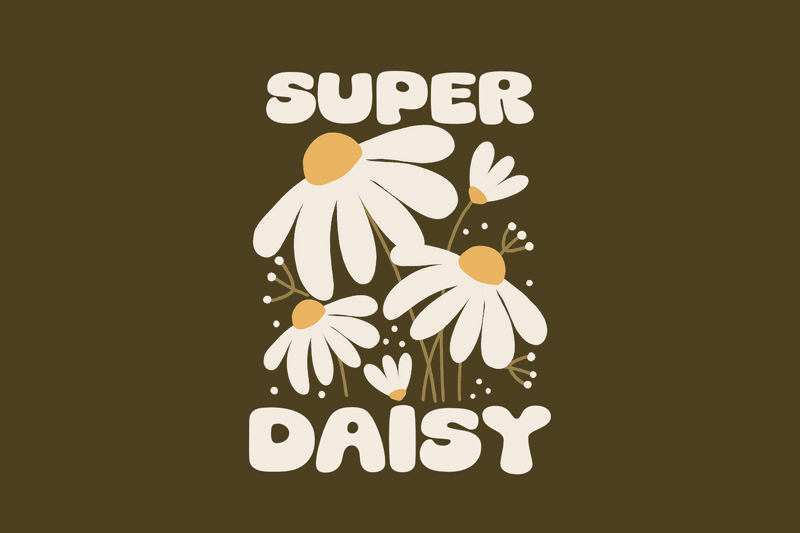
Preview and download Super Daisy Font. Created by fsuarez913 in Fancy Cartoon styles with Free for personal use license.
This font is for PERSONAL USE ONLY!. If you want to use this font for commercial purposes, you will need to purchase a commercial license. You can purchase a commercial license at https://singlelinestd.com/product/super-daisy/ Super Daisy is a round, bold, heavy, and chubby font that is perfect for making a statement. With its thick, curved letters, Super Daisy is both eye-catching and playful. It is a great choice for headlines, logos, and other attention-grabbing designs. For questions, please visit https://singlelinestd.com/contact/ |